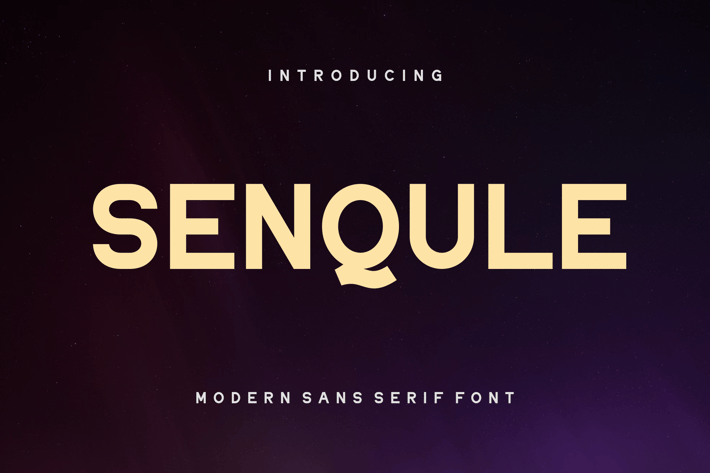
Senqule - Modern Sans Serif Font
Senqule - Modern Sans Serif Font is a unique font. Can make it easier to convey the message in your design. Use for awesome display, labeling, clothing, movie sceen, poster, movie title, gigs, album covers, logos, and much more.